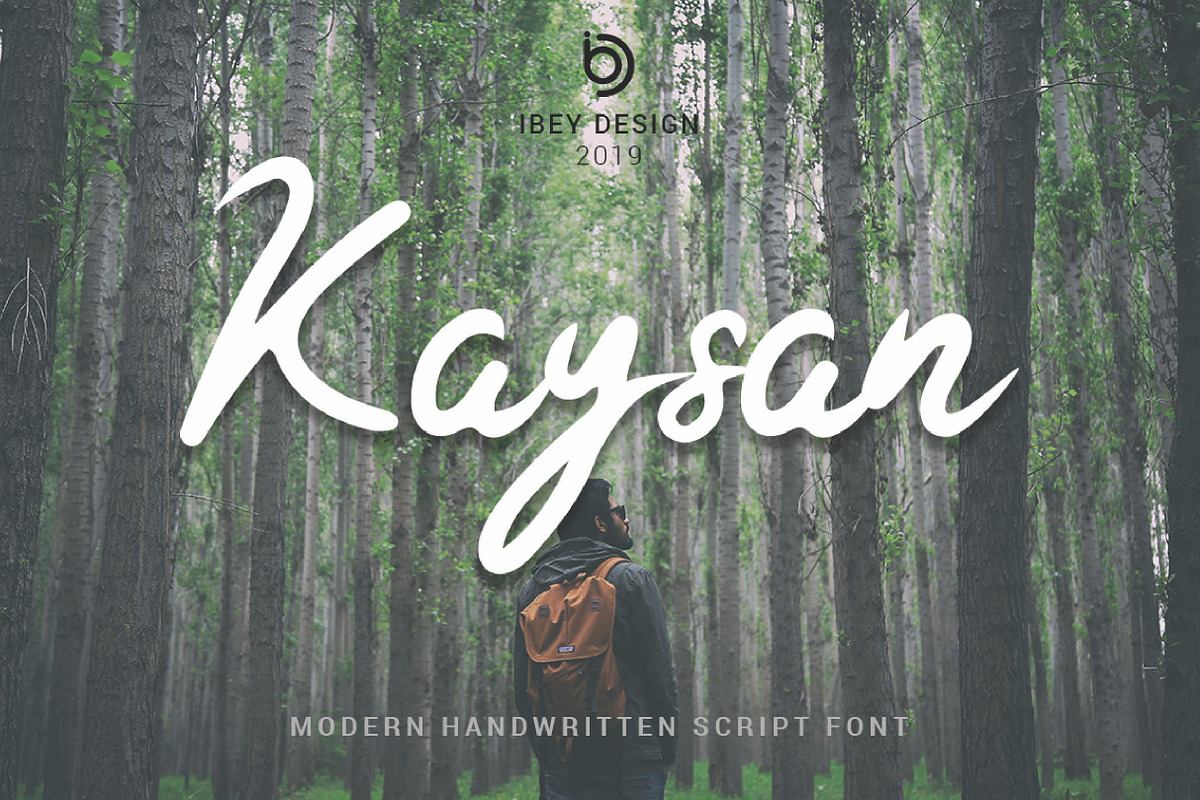
Kaysan – Modern Handwritten Font Free Download is a stylish and elegant script font that brings a personal, high-end touch to your designs. With smooth curves, fluid strokes, and a natural handwritten flow, it’s perfect for logos, wedding invitations, social media graphics, boutique branding, and beauty packaging.
Designed to blend modern aesthetics with a handcrafted feel, Kaysan adds personality and charm without sacrificing readability. You can test it for free in your personal projects, but a commercial license is required for any business or monetized use.
Enhance your typography with Kaysan – Modern Handwritten Font Free Download and create designs that feel luxurious, intimate, and effortlessly chic. It’s a must-have font for designers looking to add signature-style elegance to their work.